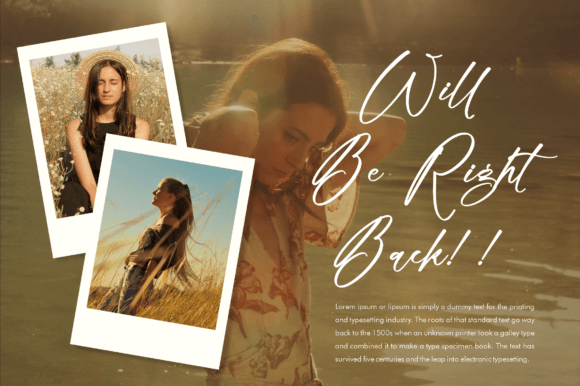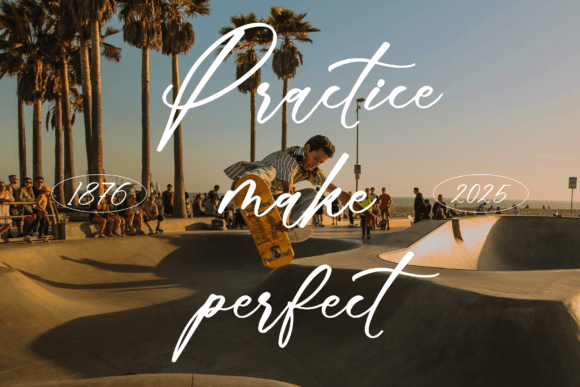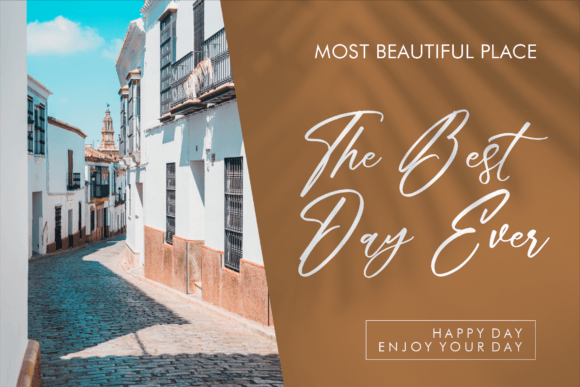
Introduction to Kassoogih Font
Have you ever been stuck on a creative project, unable to find the perfect font to bring your vision to life? I know I have. There’s nothing quite like the feeling of finally stumbling upon the perfect design resource – a font that speaks to the essence of your project and elevates it to new heights. For designers, finding that one special font can be the difference between a good design and a great one.
Enter the Kassoogih Font, a modern calligraphy script font that’s perfect for any project that needs a touch of elegance and sophistication. Whether you’re working on a logo, branding project, or homeware design, this font is sure to add a beautiful script touch that will leave a lasting impression. With its high-quality design and transparent background, the Kassoogih Font is a valuable resource for designers looking to take their projects to the next level.
Key Features of Kassoogih Font
- High-quality, unique font design ideal for creative projects requiring a distinctive touch.
- Transparent background, allowing for seamless integration with other design elements.
- Designed with a high level of detail, featuring intricate textures and patterns that add depth to any design.
Honest Review: Kassoogih Font
I recently had the chance to work with the Kassoogih Font, and I must say it’s been an interesting experience. For my creative project, I was looking for a unique and eye-catching font to add some personality to my design. The Kassoogih Font delivers on that front, with its intricate details and bold lines.
One of the things that works well with the Kassoogih Font is its versatility. It can be used for a variety of design projects, from logos to typography-based art. The font also comes with a transparent background option, which is perfect for designers who want to add some extra flair to their designs.
Here are some of the key features that make the Kassoogih Font a valuable design resource:
- High-quality design with intricate details
- Transparent background option for added versatility
However, there are some limitations to keep in mind:
- The font may not be suitable for all design projects, especially those that require a more subtle or minimalist approach
- The font’s bold lines may not be ideal for designs that require a lot of text
Overall, the Kassoogih Font is a unique and high-quality design resource that can add some extra flair to your creative projects. While it may not be suitable for all design needs, it’s definitely worth considering for projects that require a bold and eye-catching font.
Tips for Getting the Most Out of Kassoogih Font
For a high-quality design, use Kassoogih Font with a transparent background to create a clean and modern look. You can also experiment with different font styles and combinations to create a unique design.
Kassoogih Font is ideal for creative projects such as logo designs, infographics, and social media graphics. Its high-quality design makes it a great resource for designers and non-designers alike.